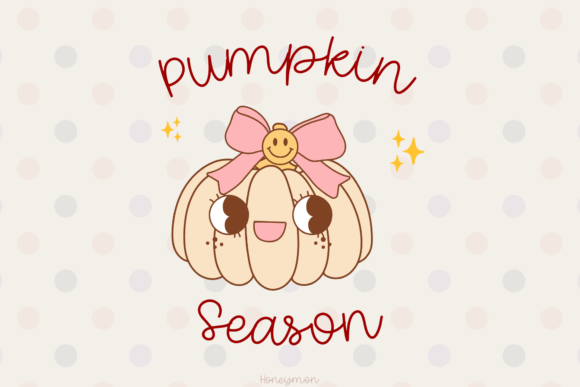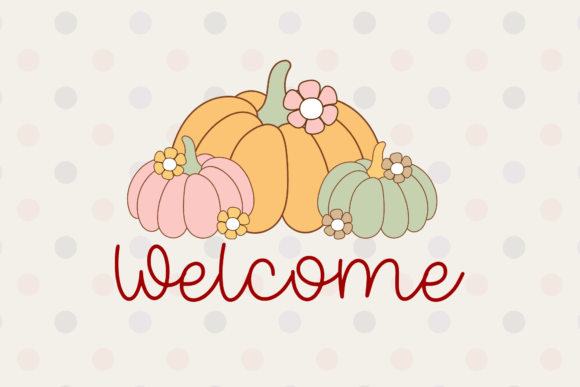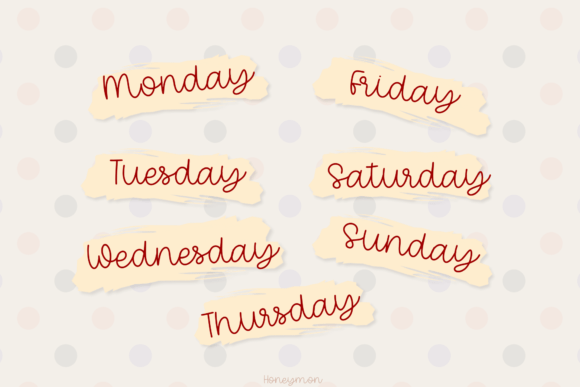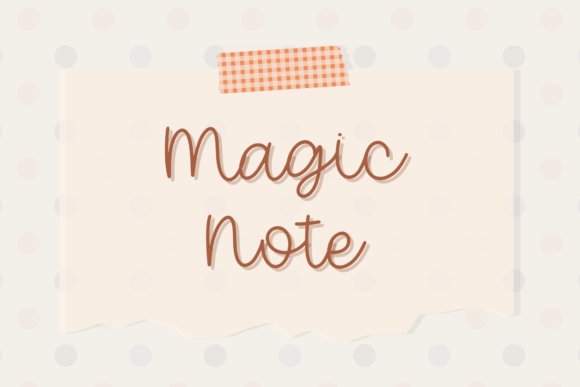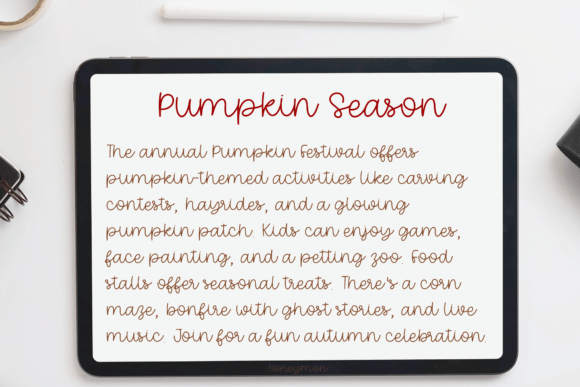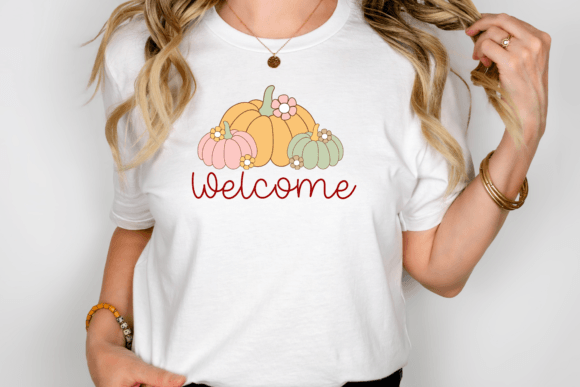
Introduction to Pumpkin Planner Font Font
Fonts play a crucial role in design, and the Pumpkin Planner Font font is a typeface that brings both character and versatility to any project. Whether you’re working on a branding project, a website, or a print design, the Pumpkin Planner Font font offers a unique style that can elevate your work.
Pumpkin Planner is a cute and lovely handwritten script font.
Its casual charm and fun personality are perfect for creating cozy autumn designs .
Key Features of Pumpkin Planner Font Font
Why Choose Pumpkin Planner Font Font?
The Pumpkin Planner Font font is more than just a typeface – it’s a design tool that helps you communicate your message with style and clarity. Its unique character set and versatile design make it suitable for a wide range of applications, from elegant invitations to bold headlines.
With its carefully crafted letterforms and balanced proportions, the Pumpkin Planner Font font ensures readability and visual appeal across all mediums.
What makes Pumpkin Planner Font font special?
The Pumpkin Planner Font font stands out with its unique design, exceptional readability, and versatility across various design applications.